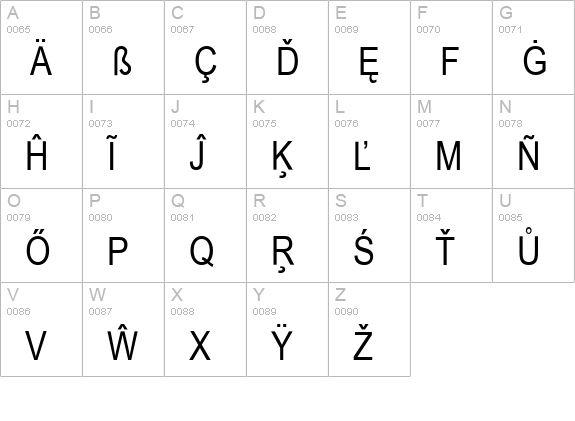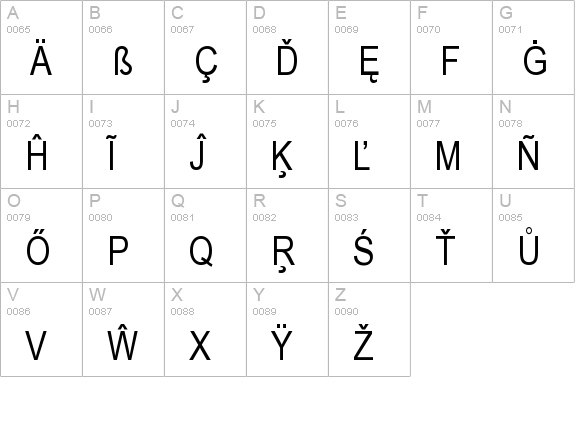
Linguine Linguist Font Details
Introducing the exquisite Linguine Linguist font, a perfect blend of elegance and professionalism. This unique typeface features sleek lines and sophisticated curves, making it ideal for a wide range of design projects. Whether you're working on a branding campaign, website design, or print materials, Linguine Linguist adds a touch of class and sophistication to your work. What sets Linguine Linguist apart is its versatility. This font can be used for both headings and body text, giving you the flexibility to create cohesive and visually appealing designs. Its clean and modern aesthetic makes it suitable for a variety of applications, from corporate presentations to wedding invitations. And the best part? Linguine Linguist is completely free to download at FontsMarket.com. Yes, you read that right - this high-quality font is available for free, allowing you to elevate your design projects without breaking the bank. So, why wait? Enhance your designs with Linguine Linguist today and impress your audience with its timeless charm and sophistication.